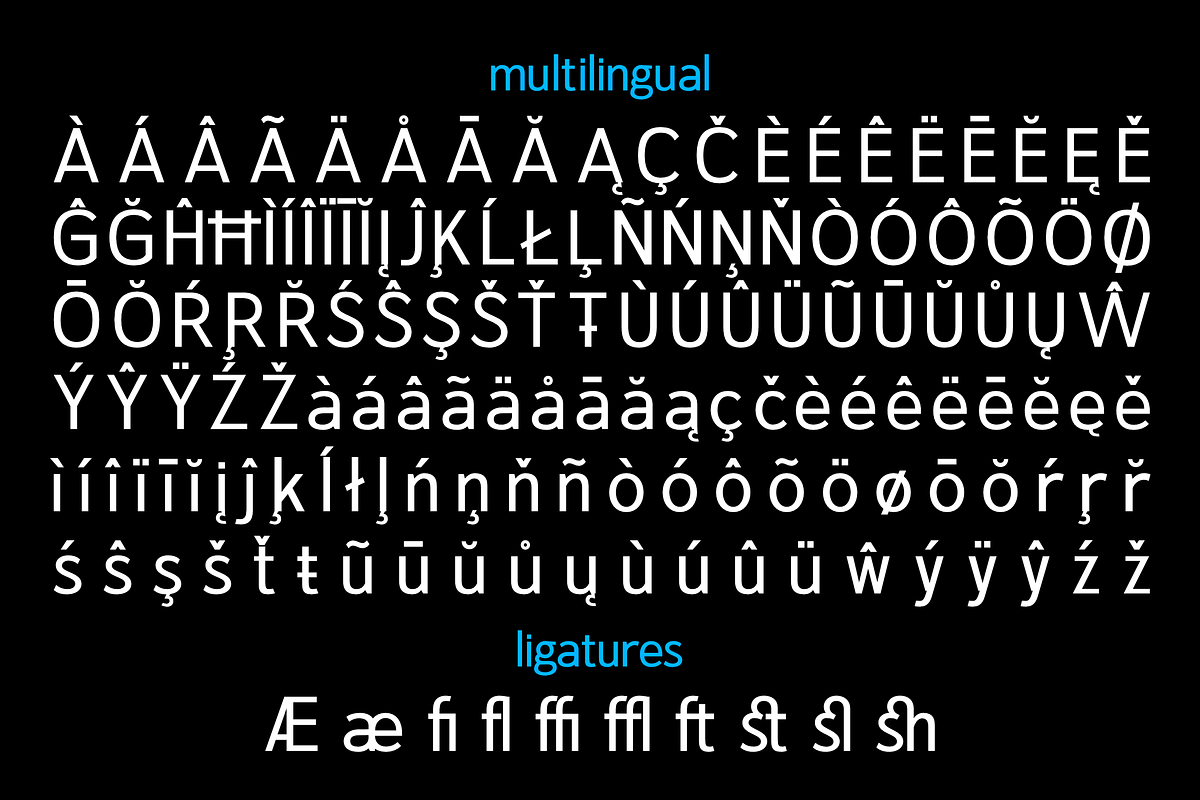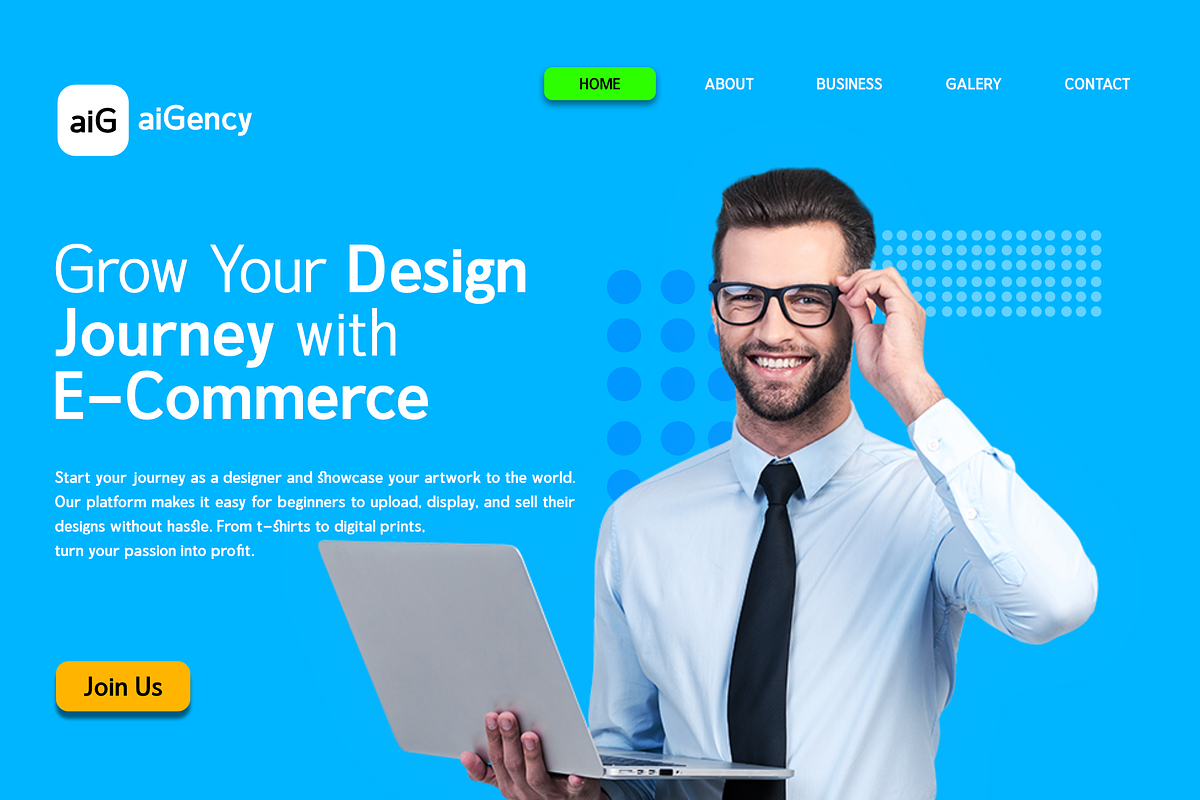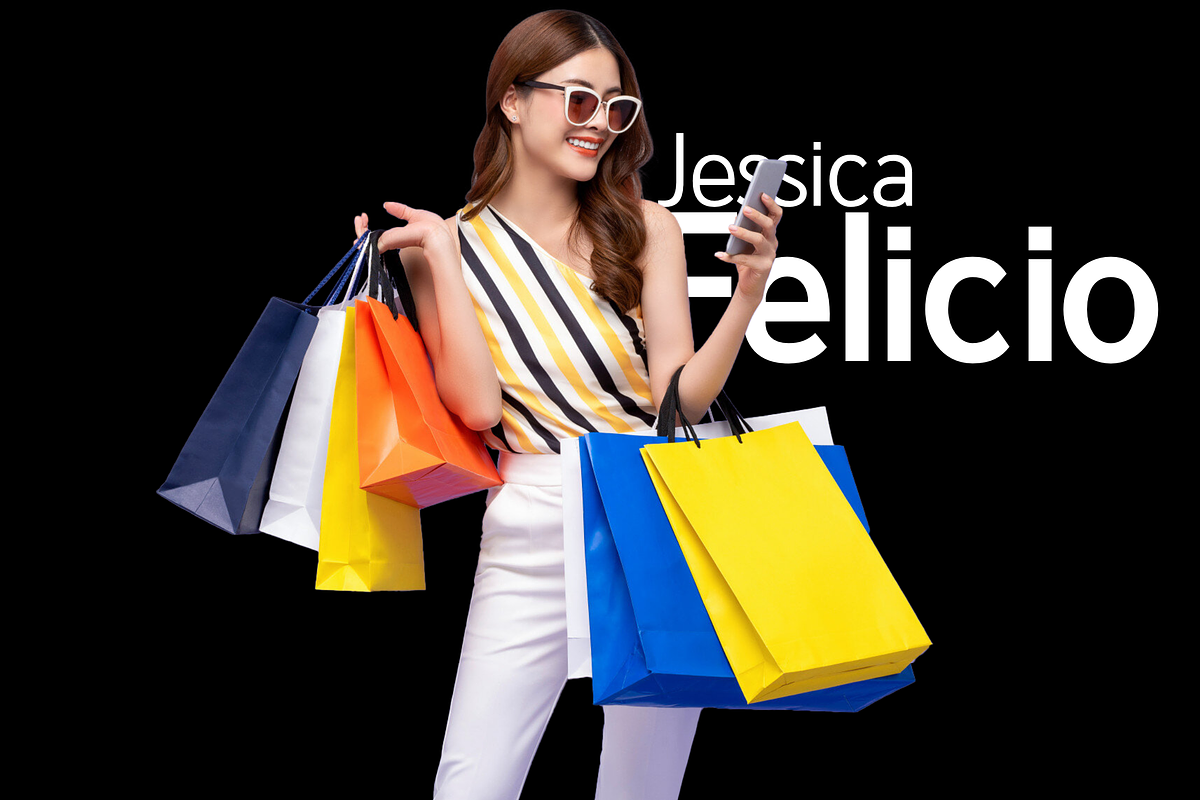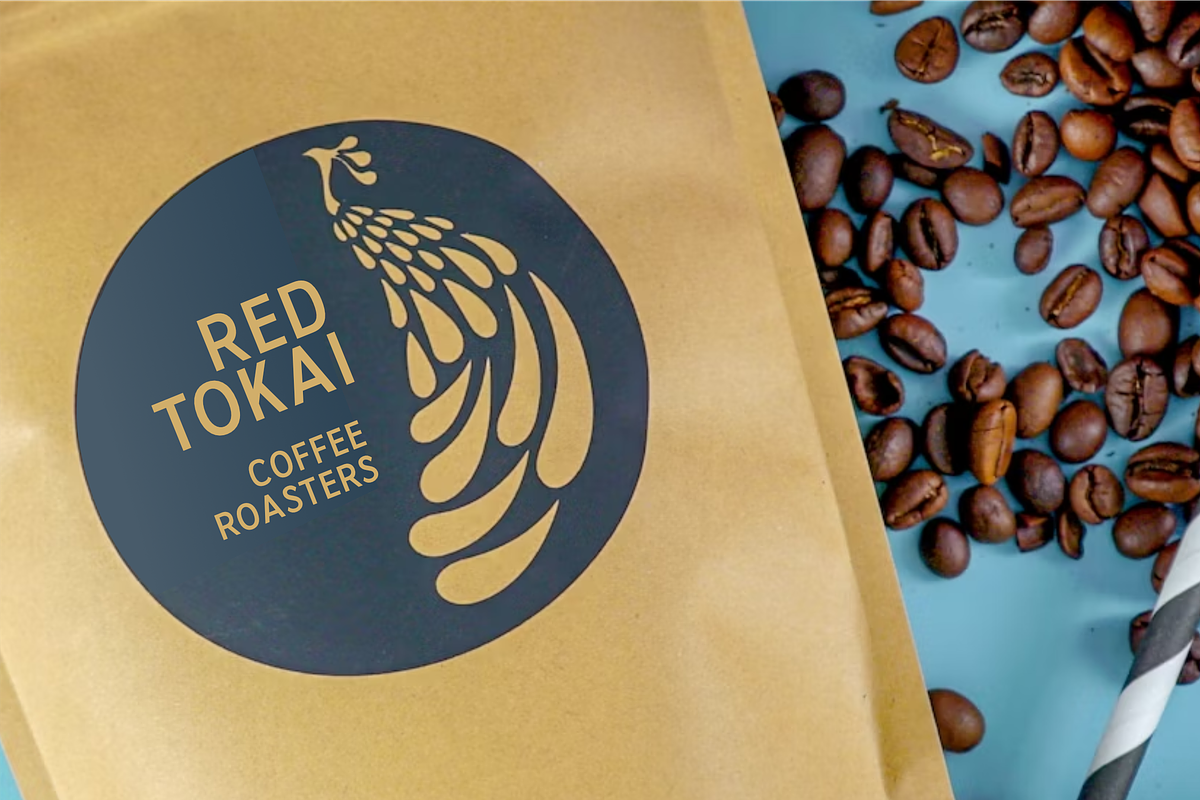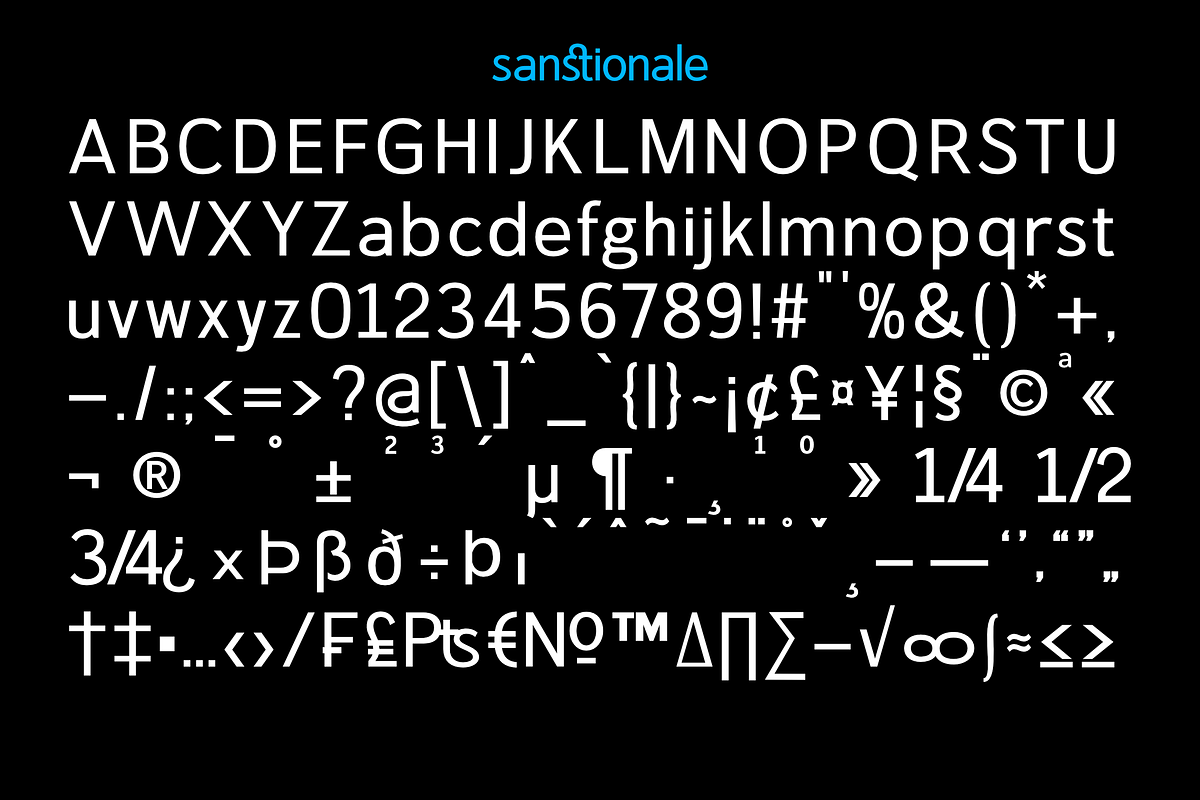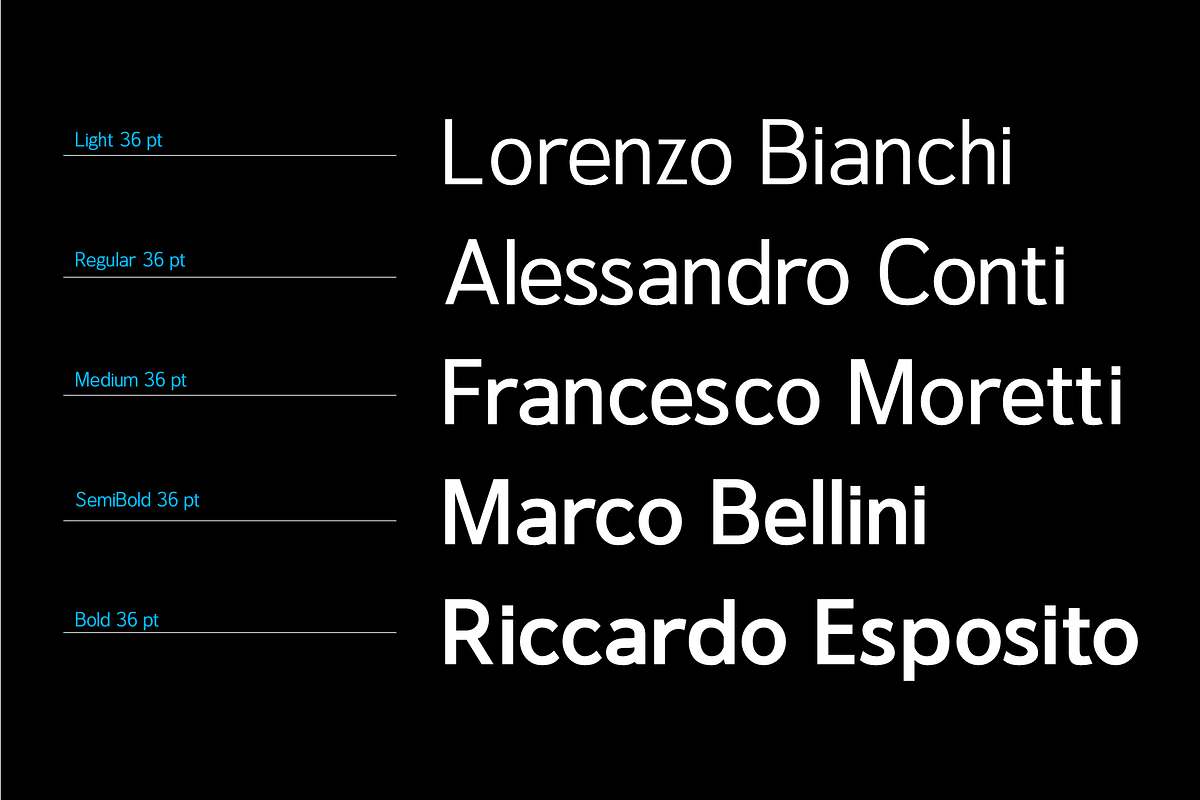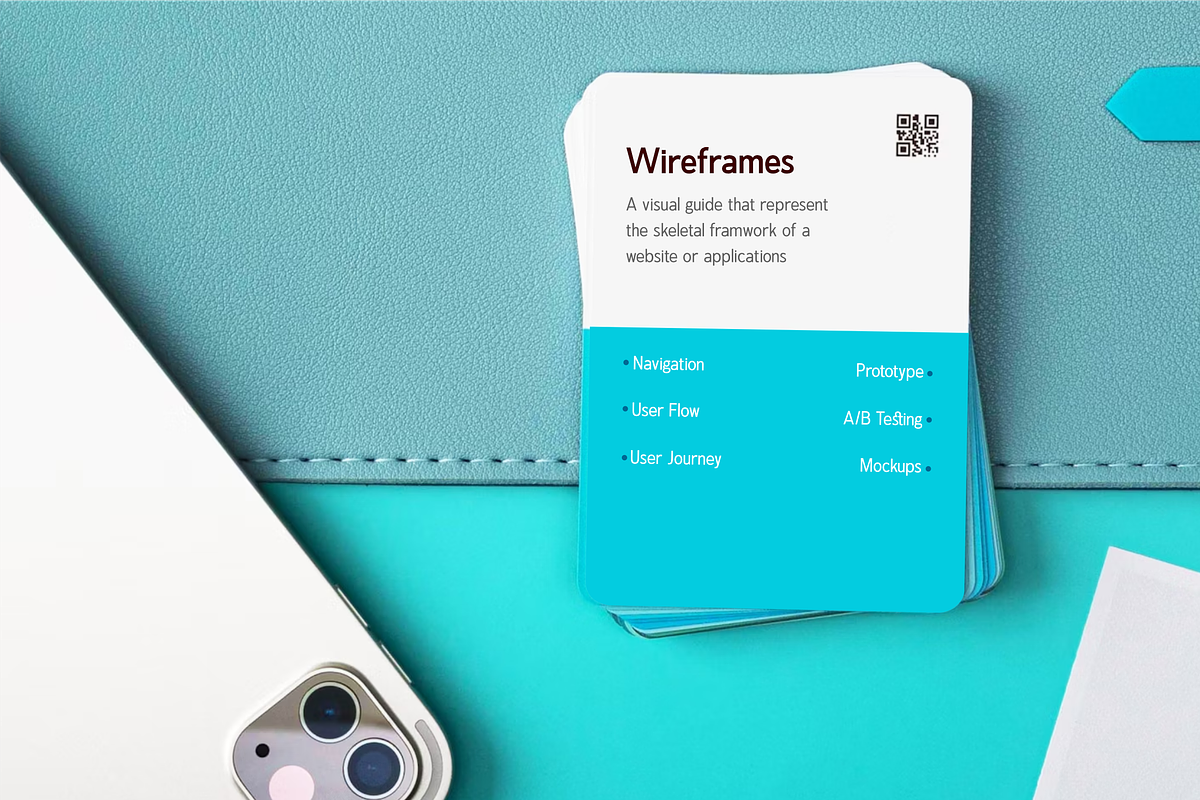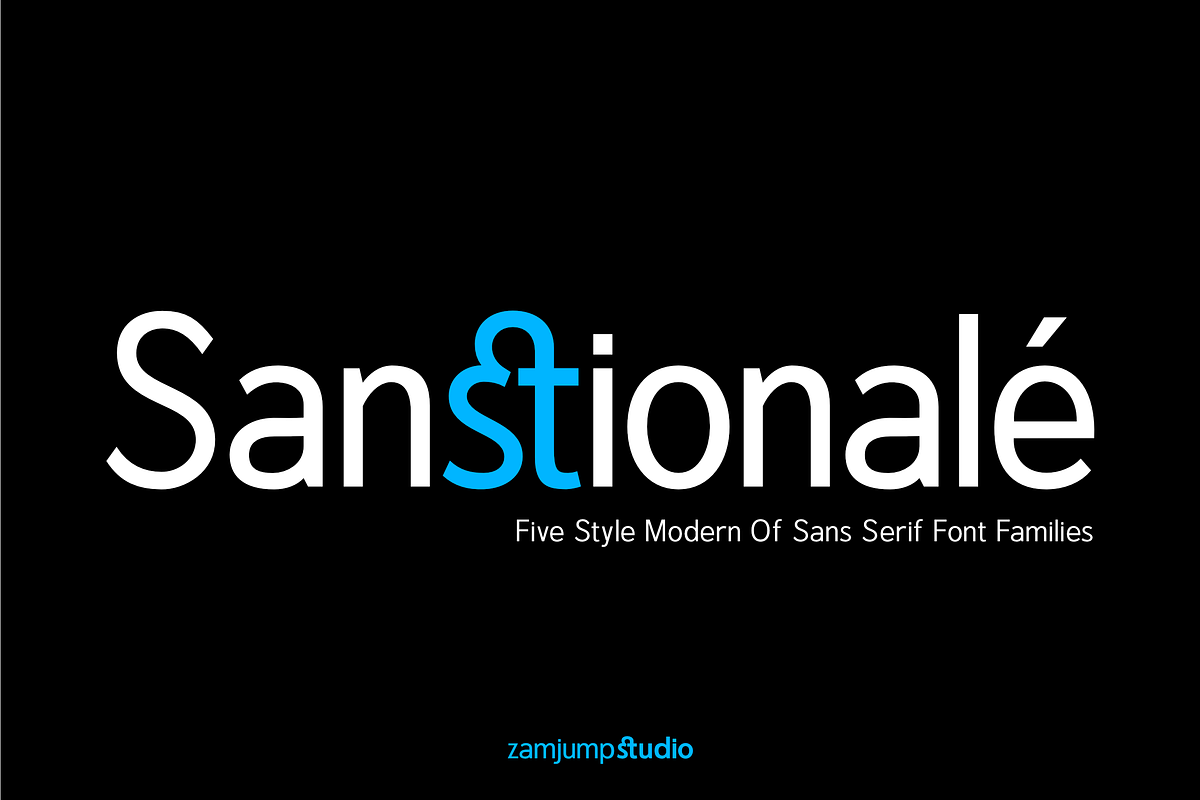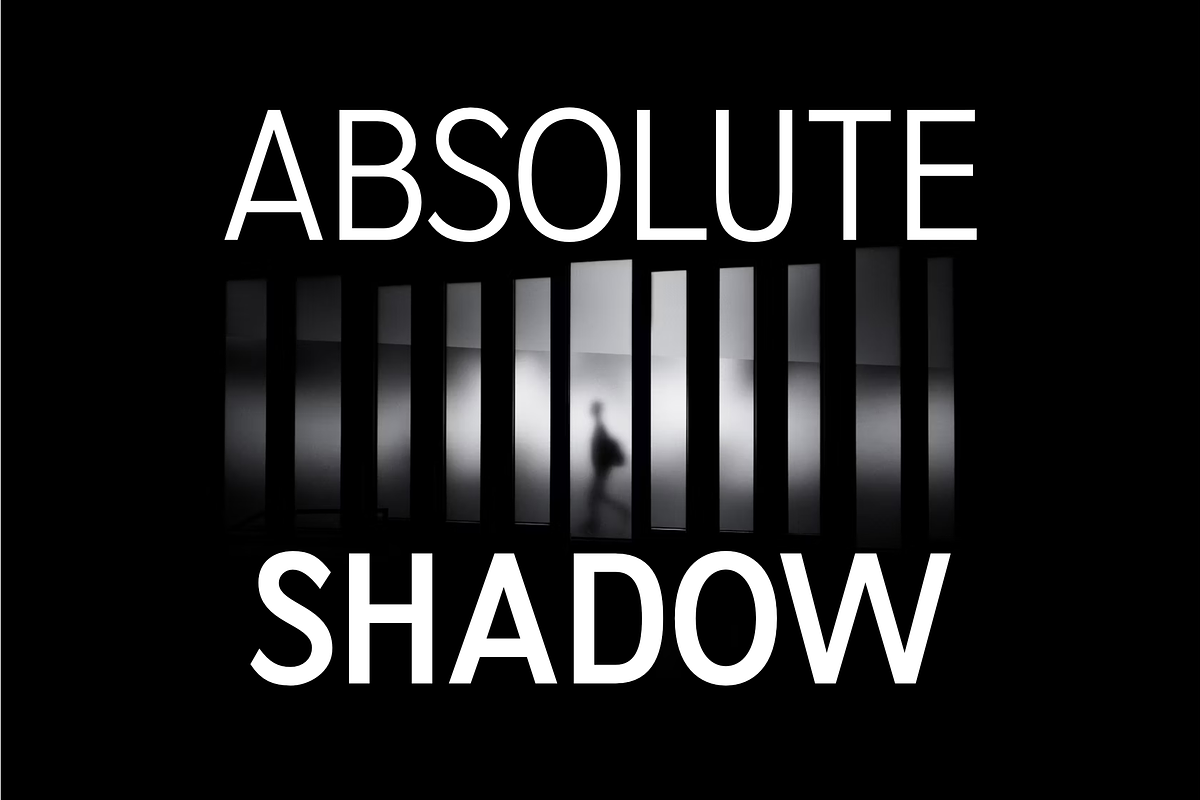
Sanstionale _ Modern Sans Family
Sanstionale is a modern sans-serif font family with five weights: Thin, Regular, Medium, Semi-Bold, and Bold. Designed for versatility, it delivers clean readability and balanced proportions, making it ideal for titles, branding, and body text across various media.